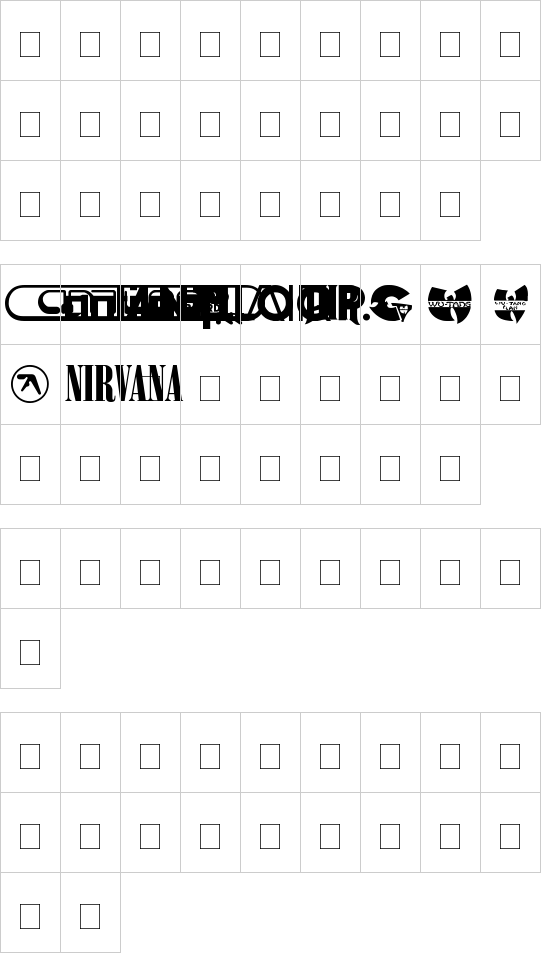
Bands & Artists is a dingbat font built from music-related symbols and band-inspired icons rather than letters. Each key reveals a different musical mark, from instruments to genre nods, drawn in a clean style that works as a small graphic accent or a feature element.